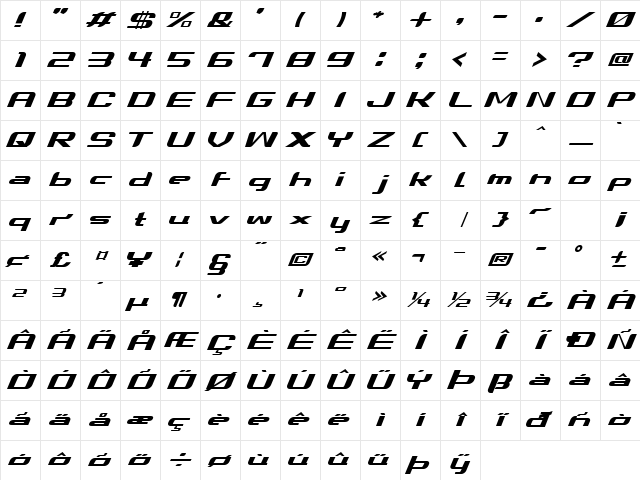
SUMMERCAMP Free Font
Design Context for SUMMERCAMP
SUMMERCAMP is a composed and adaptable typeface that performs quietly and consistently across a wide range of design contexts.